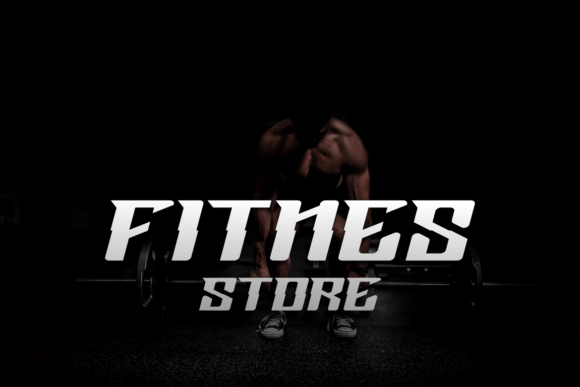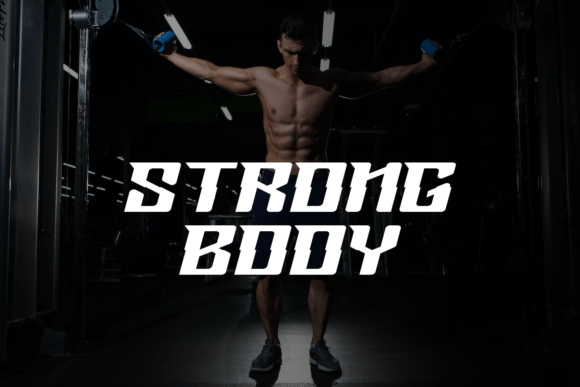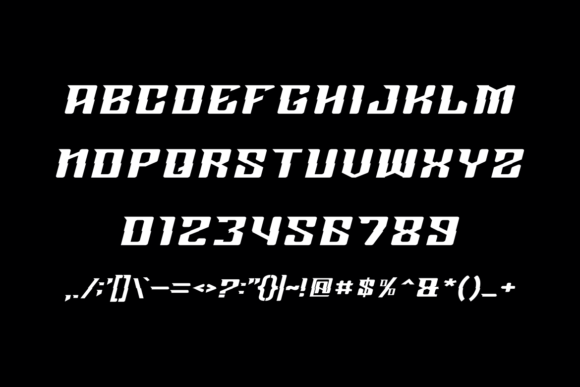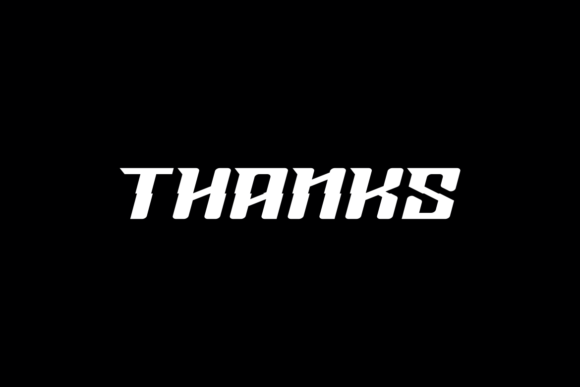
Introducing Duncuan Font: A Bold and Distinctive Display Font for Your Branding Projects
In the world of typography, a font can make or break a design. When it comes to creating a lasting impression, you need a font that stands out from the crowd. That’s where Duncuan Font comes in – a bold and distinctive display font perfect for branding projects such as logos, sports themes, and more. In this article, we’ll dive into the features and benefits of Duncuan Font, and explore how it can elevate your design game.
What is Duncuan Font?
Duncuan Font is a modern display font designed to make a statement. Its bold and distinctive style makes it perfect for headlines, titles, and branding projects where you want to grab attention. The font comes in an italic version, known as Duncuan-Italic, which adds an extra layer of flair to your designs.
Key Features of Duncuan Font
- Bold and Distinctive Style: Duncuan Font is designed to stand out from the crowd. Its bold and distinctive style makes it perfect for headlines, titles, and branding projects.
- Perfect for Branding Projects: Duncuan Font is ideal for branding projects such as logos, sports themes, and more. Its unique style makes it easy to create memorable and recognizable brands.
- Versatile: Duncuan Font can be used across various applications, from digital platforms to print materials.
- Easy to Read: Despite its bold style, Duncuan Font is easy to read, making it perfect for headlines and titles.
Benefits of Using Duncuan Font
- Create a Lasting Impression: With Duncuan Font, you can create a lasting impression on your audience. Its bold and distinctive style makes it perfect for making a statement.
- Stand Out from the Crowd: Duncuan Font is designed to stand out from the crowd. Its unique style makes it easy to create designs that grab attention.
- Perfect for Sports Themes: Duncuan Font is ideal for sports themes and branding projects. Its bold style makes it perfect for creating energetic and dynamic designs.
- Easy to Pair with Other Fonts: Duncuan Font is easy to pair with other fonts, making it perfect for creating harmonious and balanced designs.
How to Use Duncuan Font
- Use it as a Headline Font: Duncuan Font is perfect for headlines and titles. Use it to create bold and eye-catching headlines that grab attention.
- Pair it with Other Fonts: Duncuan Font is easy to pair with other fonts. Use it with a sans-serif font for a harmonious and balanced design.
- Experiment with Colors: Duncuan Font looks great in bold colors. Experiment with different colors to create a design that stands out.
In conclusion, Duncuan Font is a bold and distinctive display font perfect for branding projects such as logos, sports themes, and more. Its unique style makes it easy to create memorable and recognizable brands. With its bold and easy-to-read style, Duncuan Font is perfect for headlines, titles, and branding projects. So, why settle for a ordinary font when you can use Duncuan Font to make a statement?